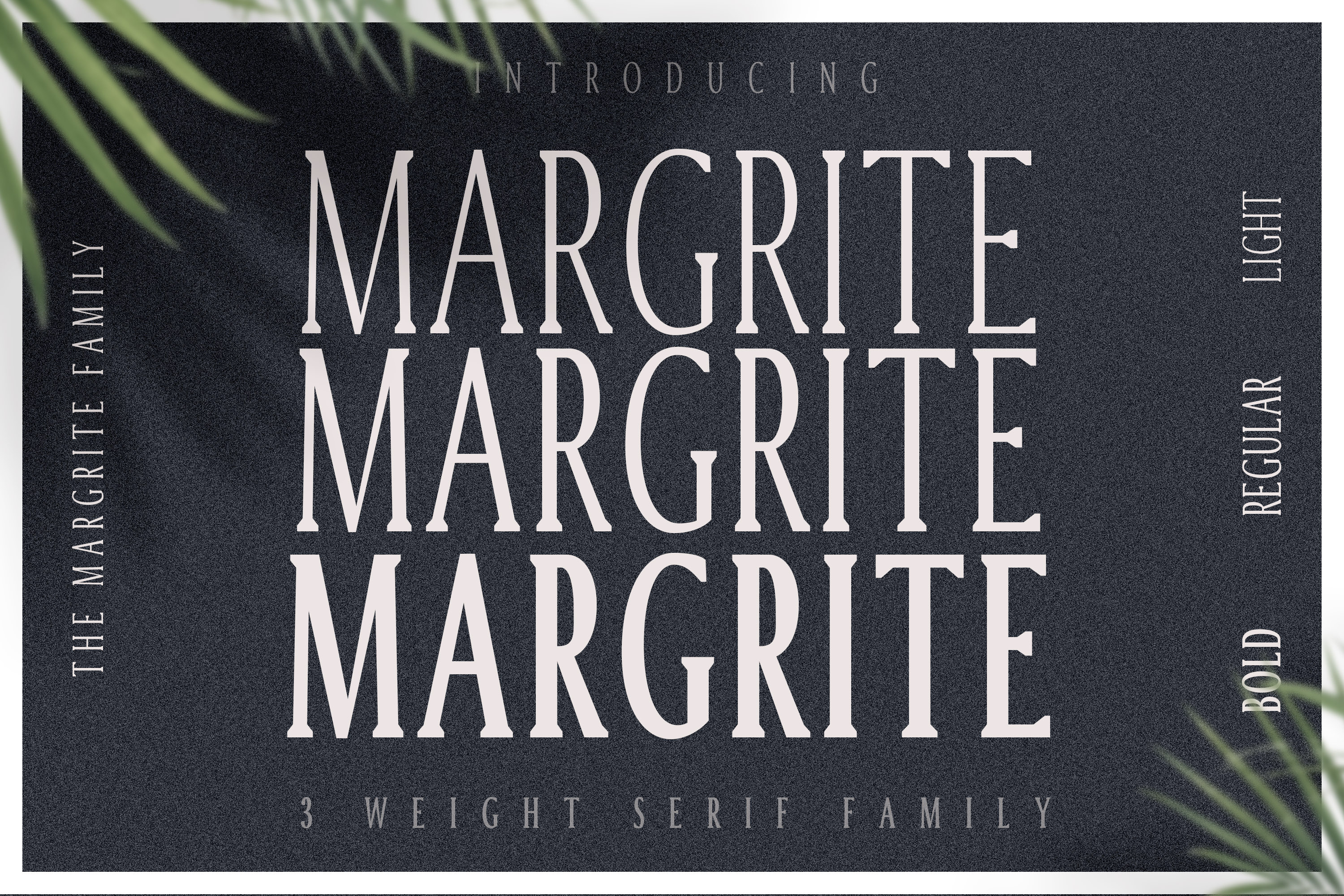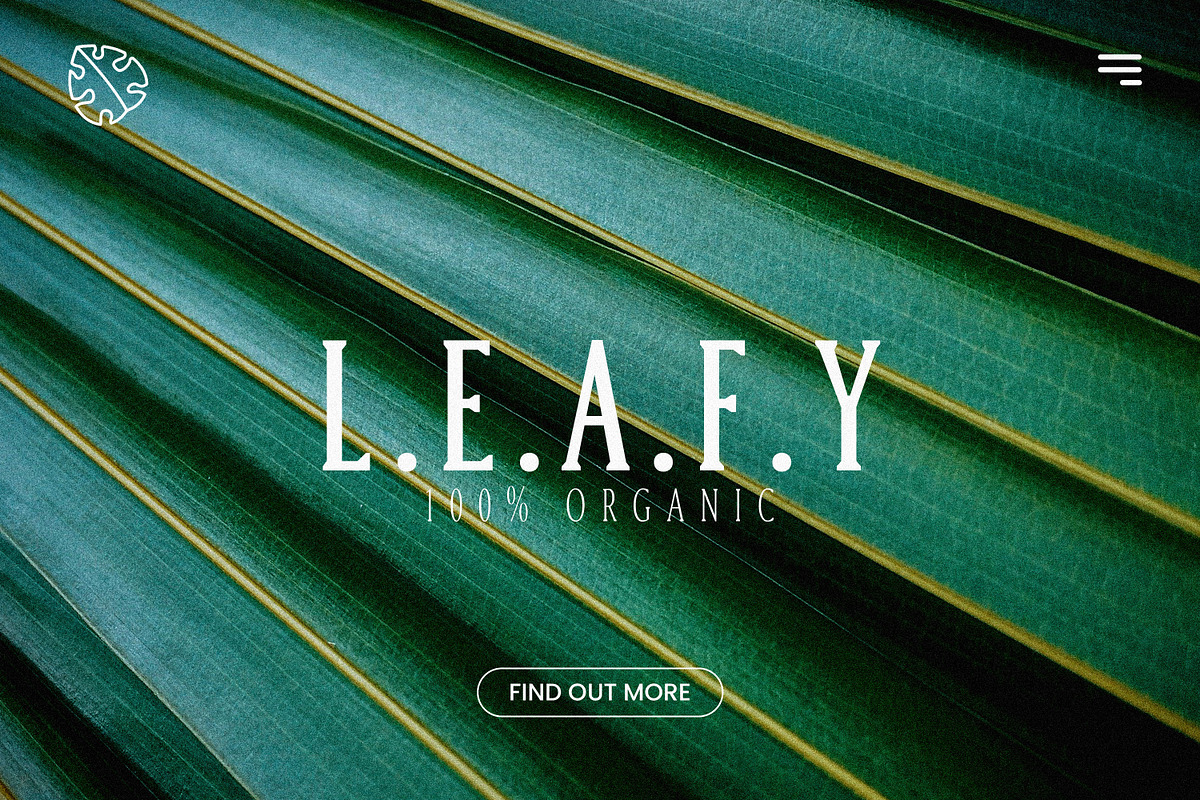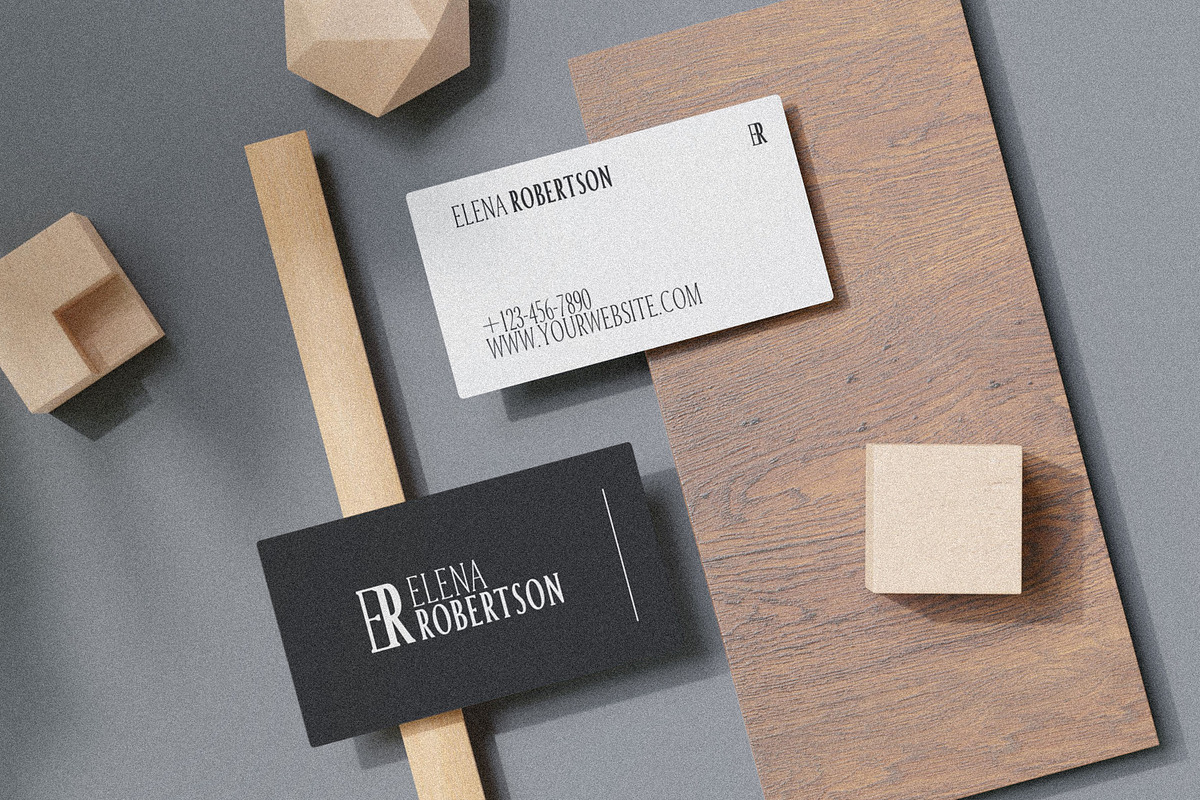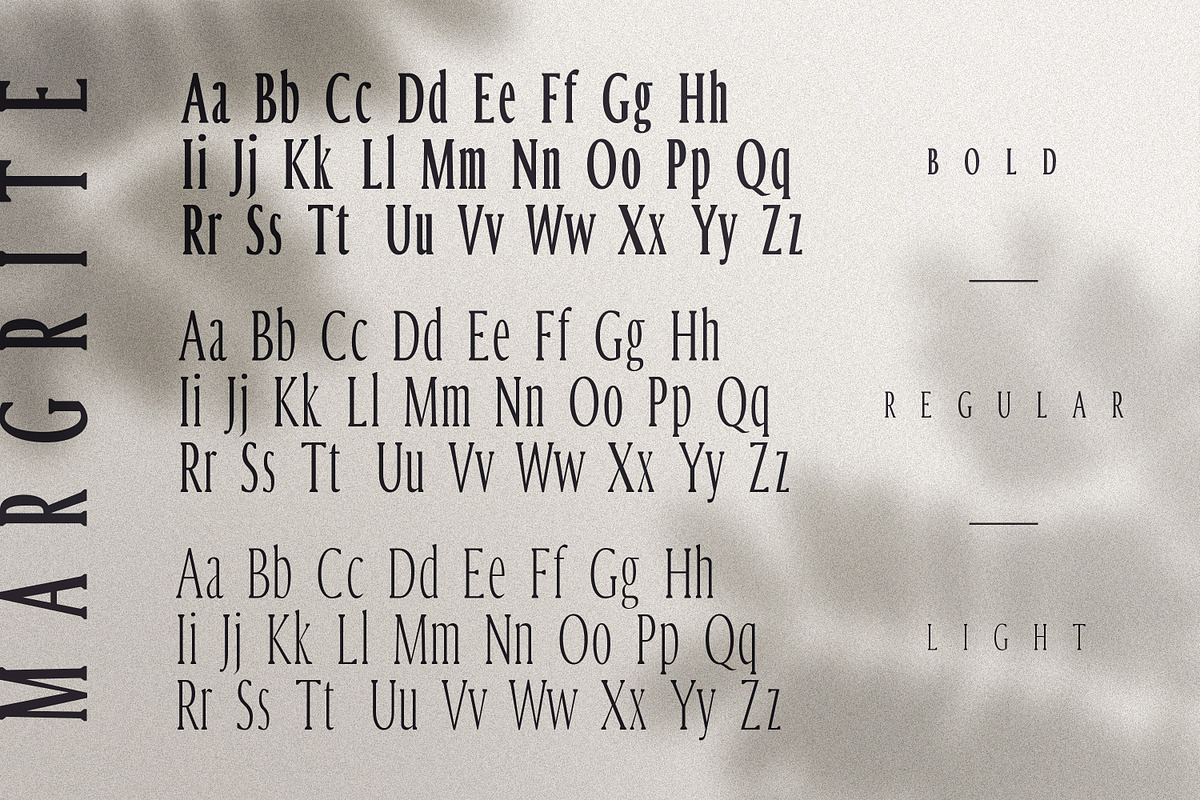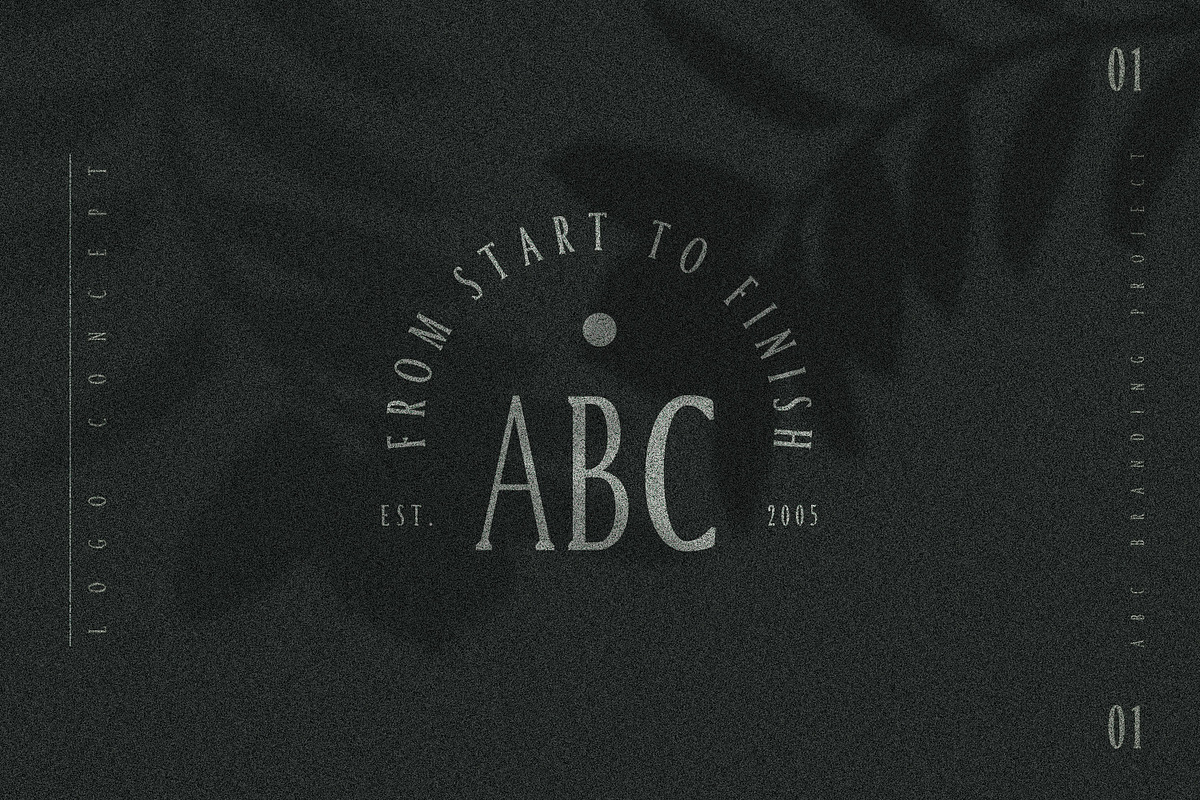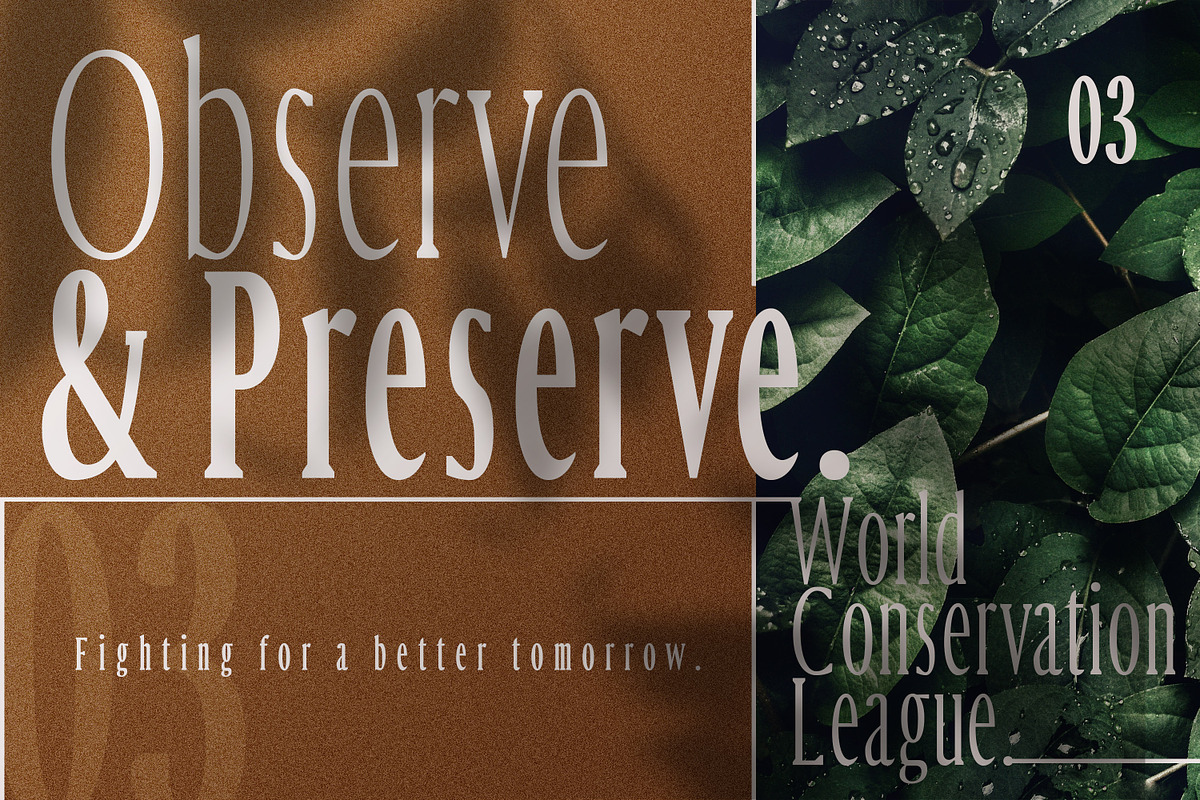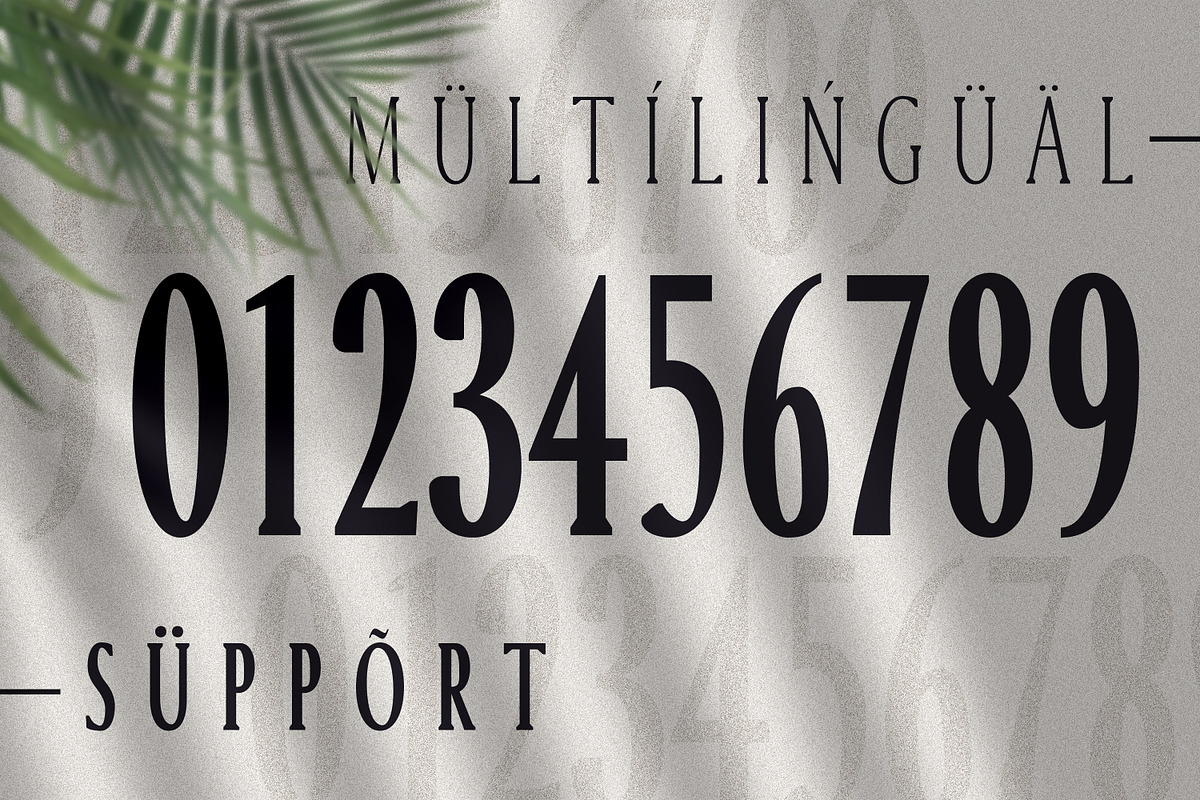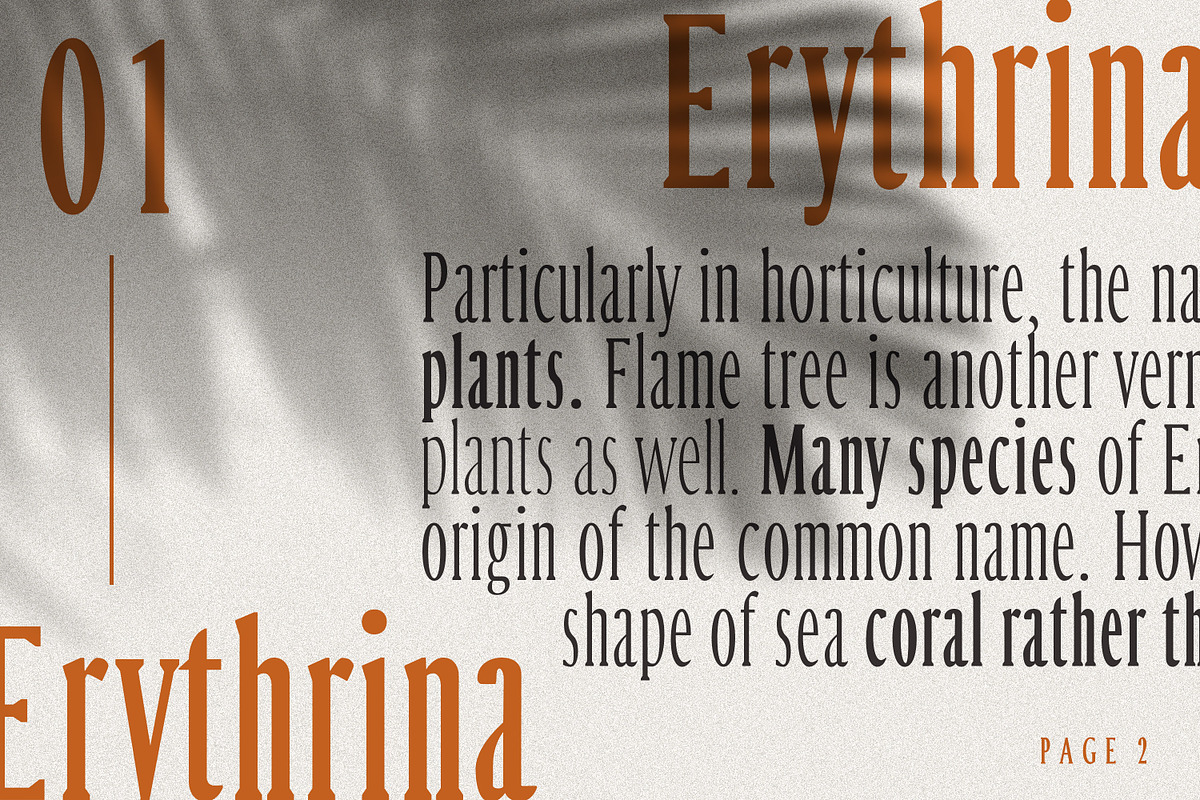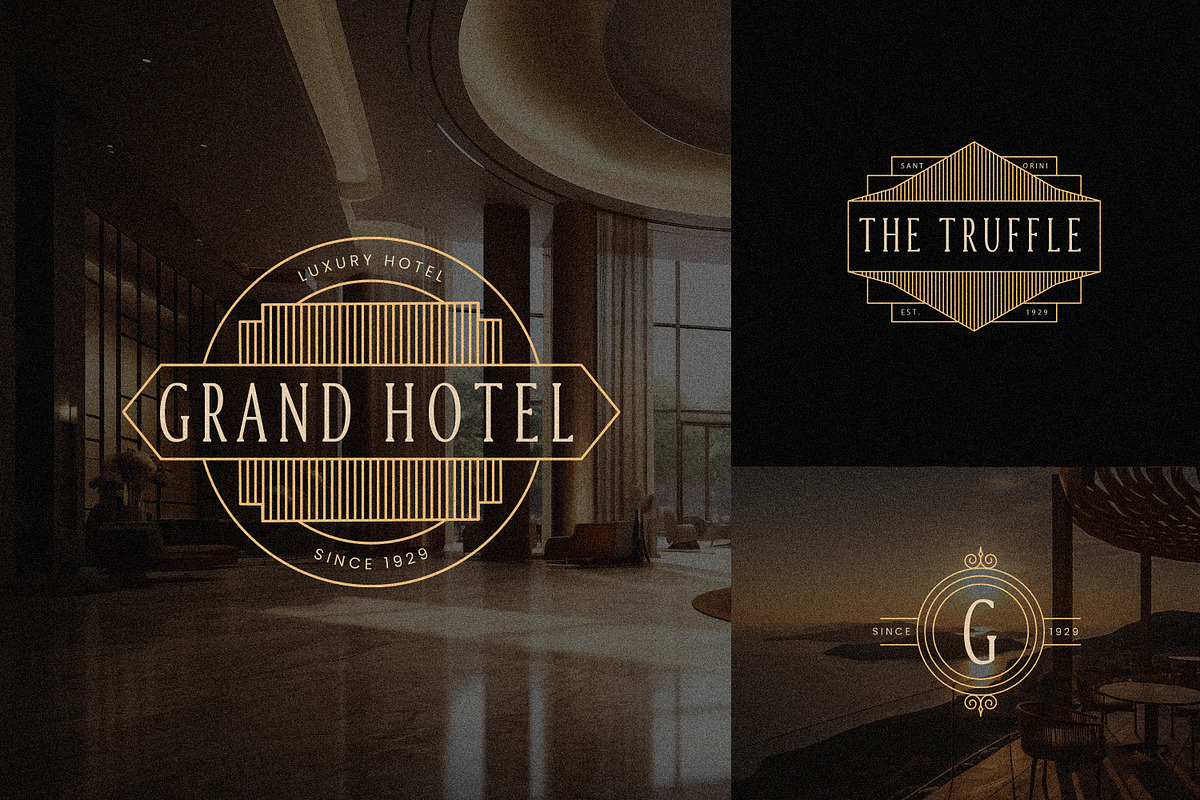
Margrite - Tall Serif Font Family
Introducing Margrite - A Tall and Condensed Serif Typeface Family consisting of Light, Regular, and Bold fonts.
This is perfect for all kinds of elegant and modern designs that require more vertical room. For example all kinds of regular-size posters and flyers. The different weights can be combined together to create bold titles, accents, and copy text. Play around with all caps and tracking to create the most unique combinations. Perfect font for all kinds of logos and branding projects.